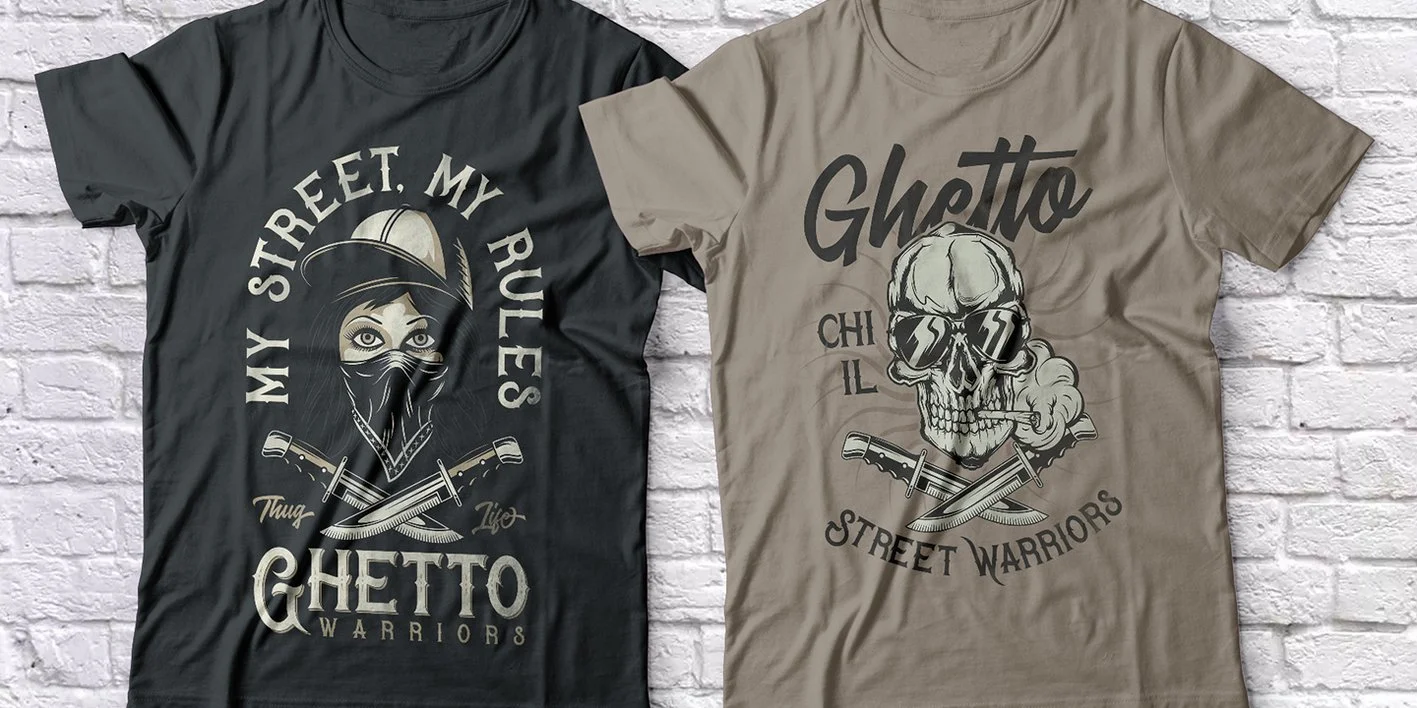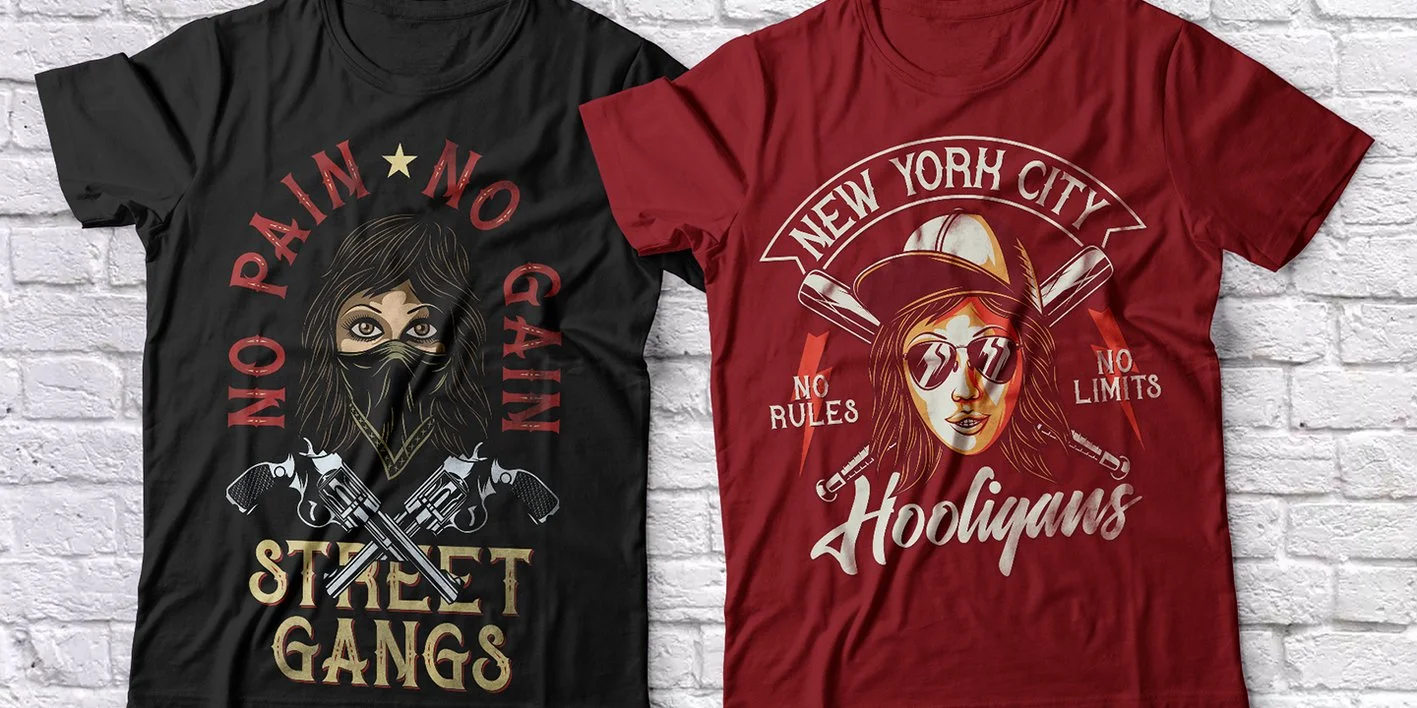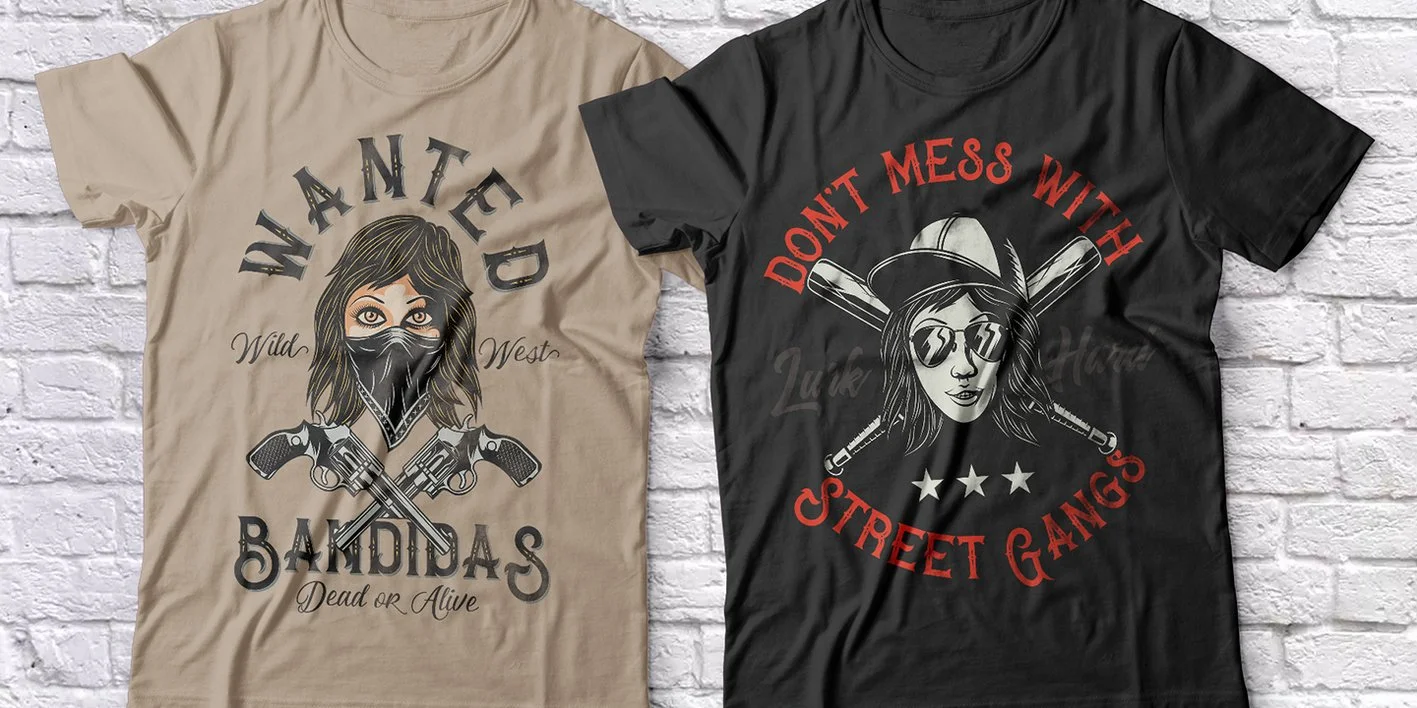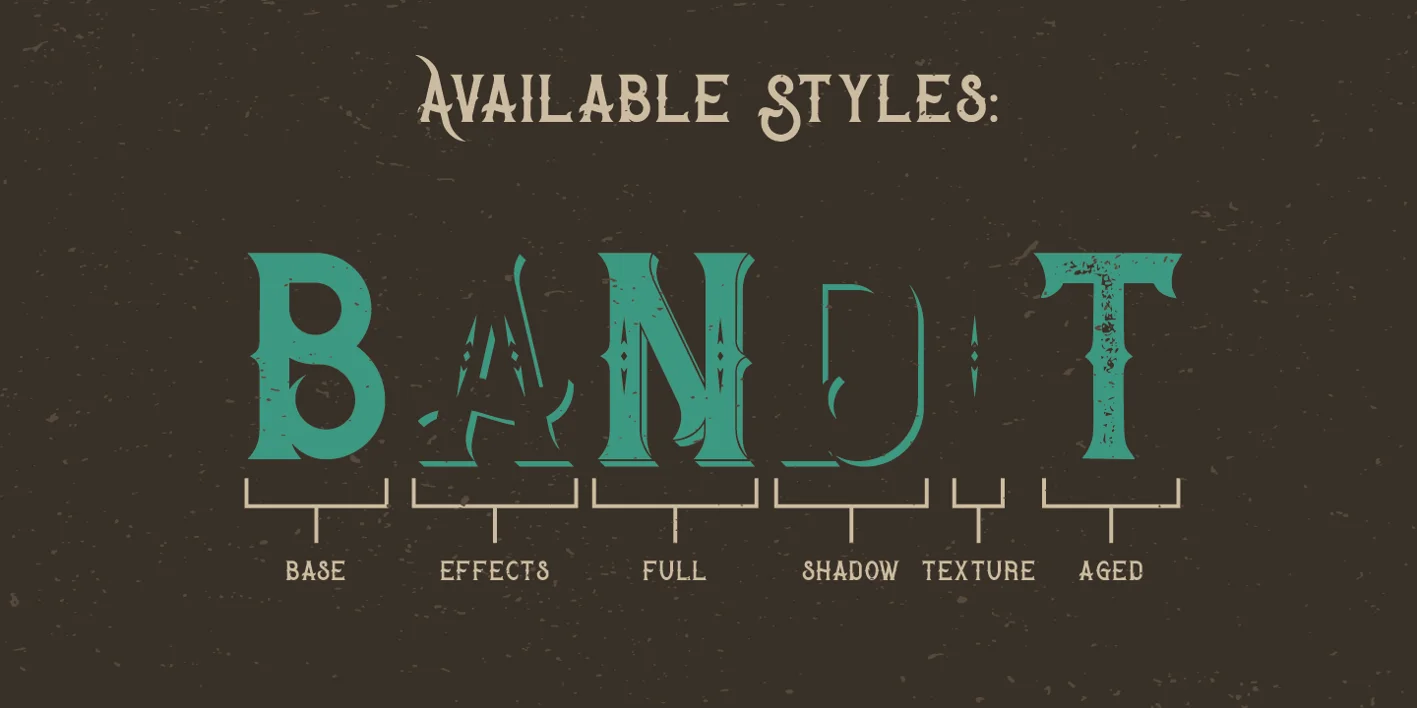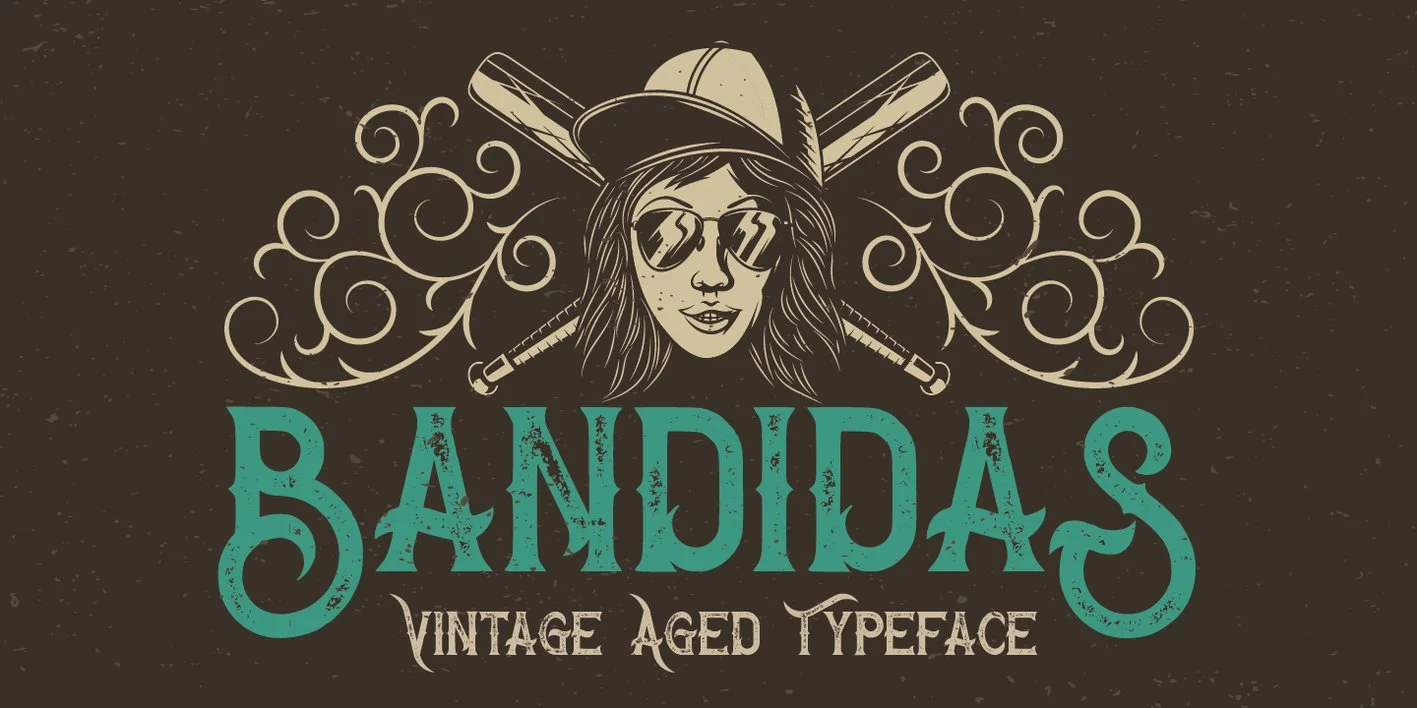
Bandidas Font
Few typefaces manage to balance consistent type colour across continuous text with genuine day-to-day practicality. Bandidas is one of them. The typeface brings a versatile sensibility to a broad range of creative disciplines, with distinctive character without sacrificing readability that holds up whether the work is print-first or screen-first.
In practice, Bandidas proves particularly effective for social media graphics, advertising campaigns, web design, annual reports, signage systems. Designers reaching for it find that the type decisions feel resolved rather than laboured — a useful quality when client timelines are tight.
The range of applications extends to packaging design, environmental graphics, brand identity systems, logo design. That breadth is deliberate: the proportions and spacing were stress-tested across a wide range of mock briefs before the typeface was finalised.
In-house creative teams at consumer brands find Bandidas a reliable choice for projects that demand both personality and restraint. The design avoids the self-conscious quirkiness that dates quickly, settling instead for considered distinctiveness that holds up over time.